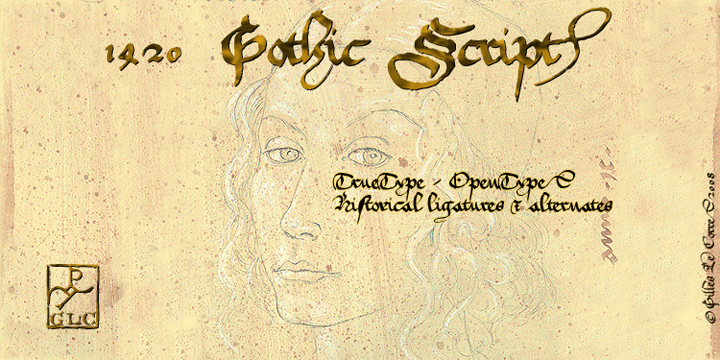
This medieval typeface is perfect for historical manuscripts, gothic literature publications, medieval wedding invitations, ancient script reproductions, monastery branding, cathedral signage, medieval festivals, historical documentaries, religious texts, heritage museums, renaissance fairs, and academic medieval studies. The font's authentic design makes it ideal for projects that celebrate 15th-century craftsmanship, monastic traditions, and the sacred beauty of illuminated manuscripts from the Gothic period.
1420 Gothic Script Font is exciting because it transports viewers to the sacred halls of medieval monasteries through its authentic calligraphic letterforms and period-accurate character structure. The font's ornate flourishes and historical proportions create an atmosphere of devotion, scholarly pursuit, and spiritual reverence, making it perfect for brands that want to convey tradition, authenticity, and connection to sacred medieval heritage. Its ecclesiastical personality ensures instant historical immersion while maintaining excellent readability across various period applications.
The 1420 Gothic Script Font family includes multiple monastic variations: Light Novice, Regular Monk, Medium Abbot, Bold Prior, and Black Archbishop weights, each featuring authentic medieval characteristics. Special manuscript editions include illuminated capitals, decorative borders, and period ornaments that enhance the font's historical appeal, providing designers with comprehensive tools for creating authentic medieval communications.
Journey to medieval monasteries with 1420 Gothic Script Font Free Download – a typeface that embodies the sacred artistry and scholarly devotion of 15th-century scriptoriums. Whether you're developing historical branding, religious publications, or medieval heritage projects, this font delivers the authentic period character and sacred atmosphere your projects need while ensuring exceptional performance and timeless medieval impact across all historical and religious applications.